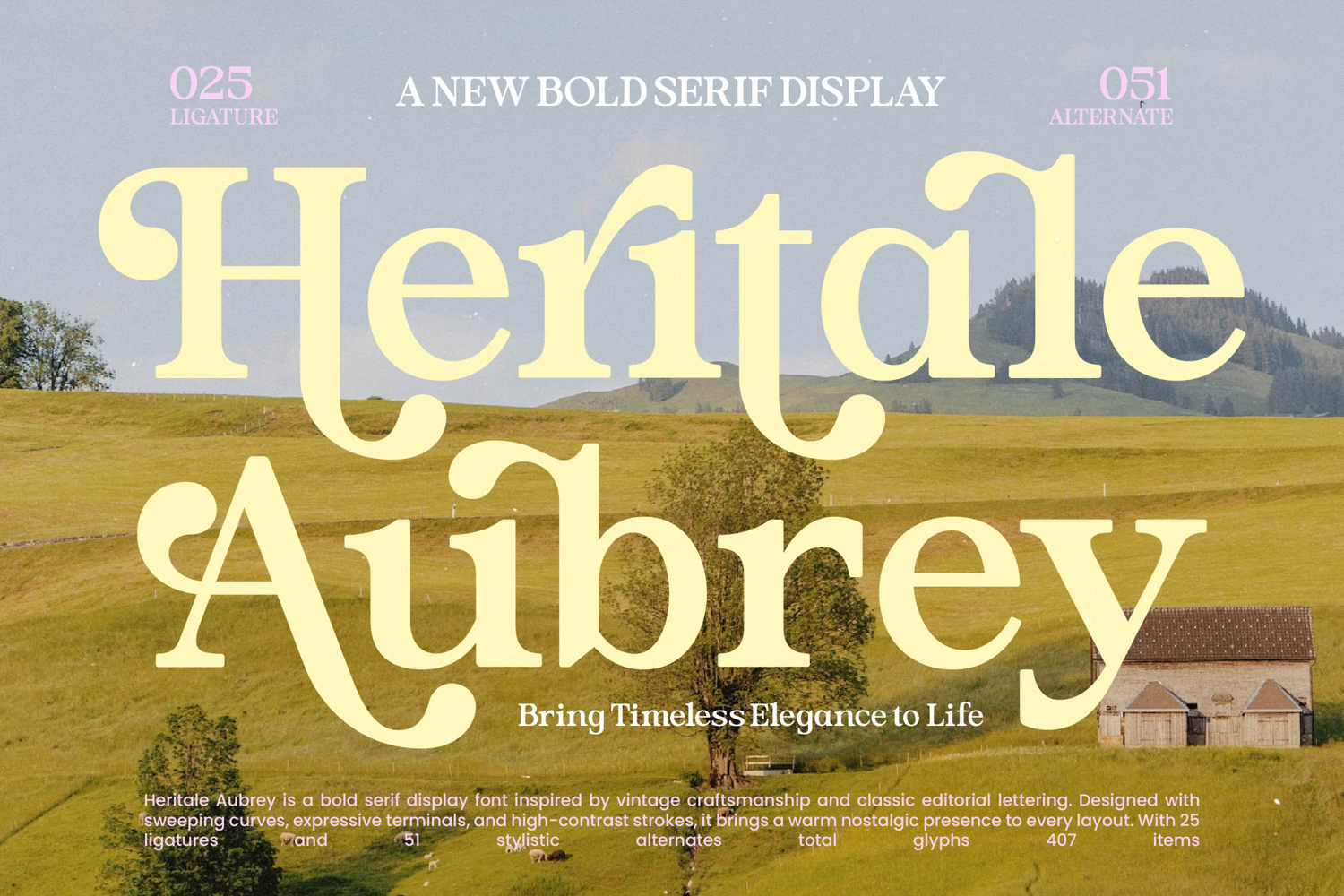
Heritale Aubrey - Bold Serif Display
Unleash a wave of nostalgic elegance with Heritale Aubrey, a bold serif display font that commands attention. Inspired by classic editorial lettering and vintage craftsmanship, its every character is infused with a warm, unforgettable personality. The dramatic, high-contrast strokes and sweeping, expressive curves create a rhythm that is both sophisticated and inviting, giving your designs a vintage soul with a modern pulse that feels both familiar and refreshingly new.